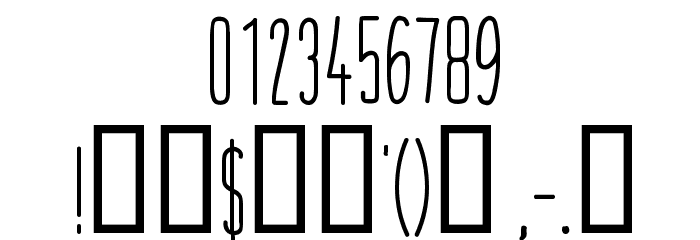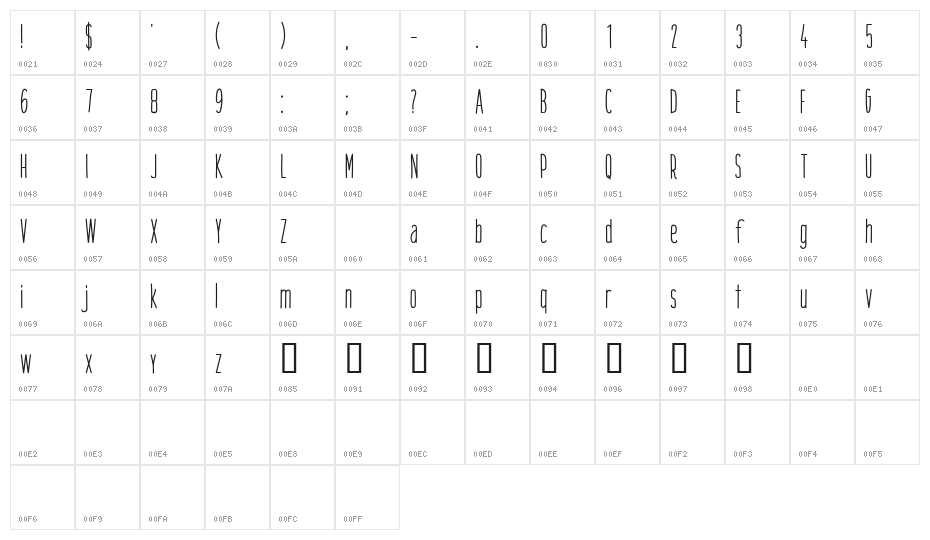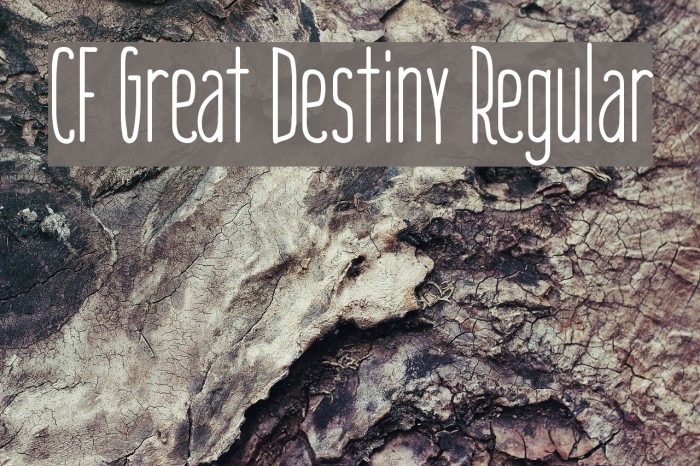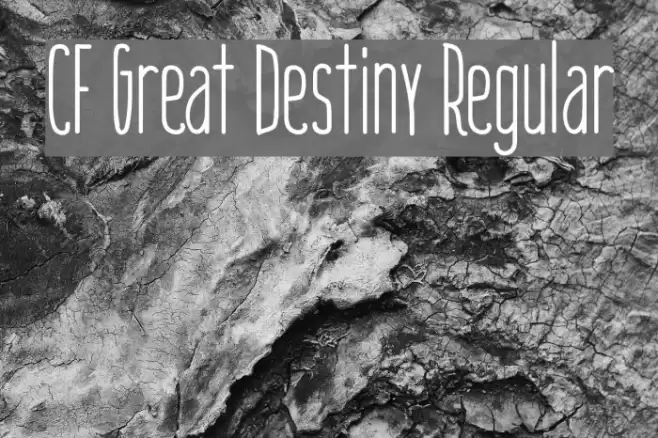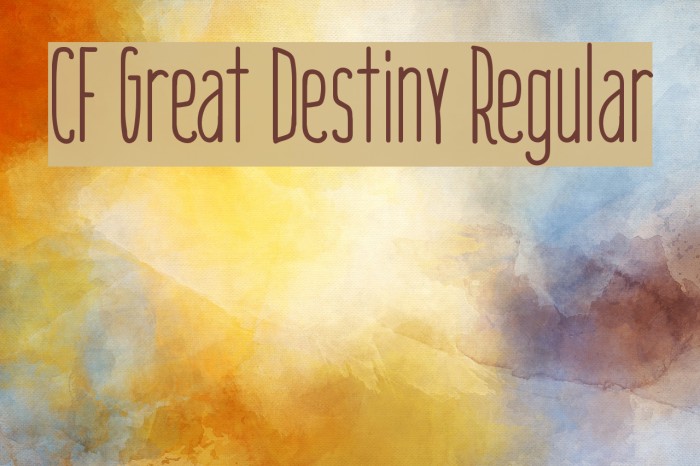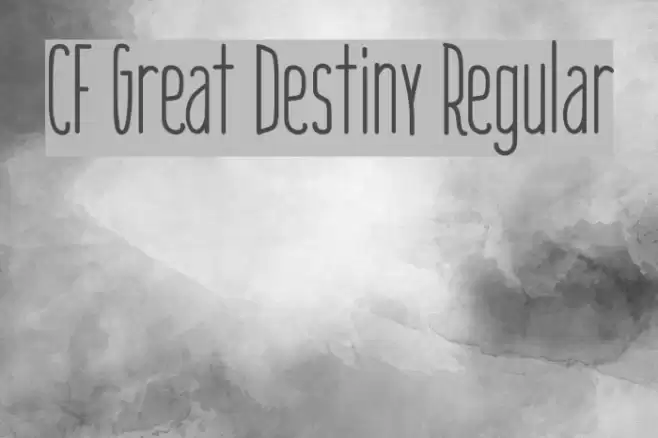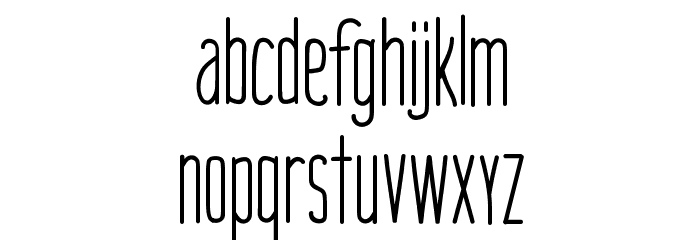
CF Great Destiny Regular Font
CF Great Destiny Regular Description
This font features a tall, narrow design with clean lines and a modern aesthetic. The uppercase letters are uniform in height, creating a cohesive look, while the lowercase letters maintain a consistent style with slightly rounded edges. The numbers are similarly styled, offering a seamless integration with the alphabet. Special characters are included, maintaining the font's sleek and contemporary feel. The overall design is minimalistic, making it suitable for a variety of applications where clarity and modernity are desired.
| Proposed Projects | Ideal for modern branding, minimalist posters, and sleek website headers. |